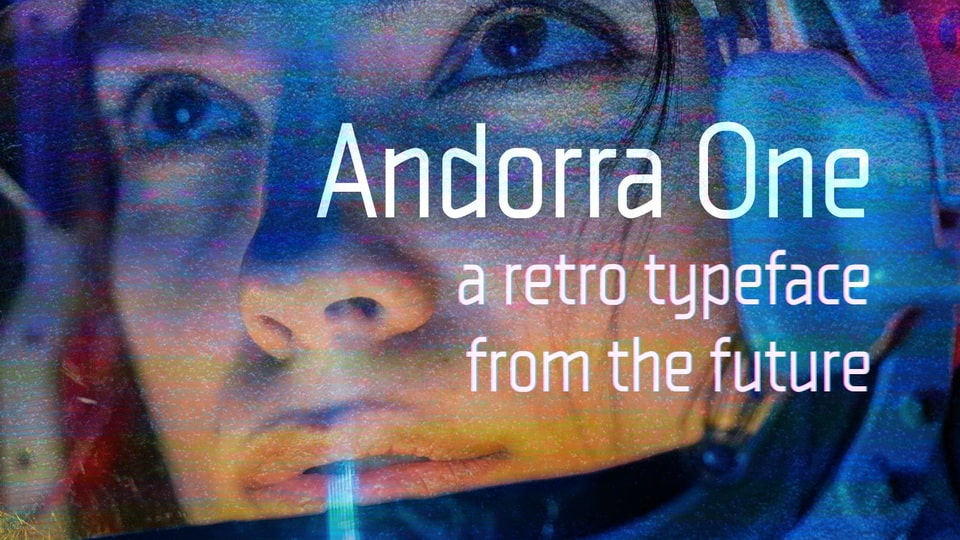
Download Andorra One font, a captivating retro typeface from the the future. With its unique blend of square, humanist, and monospaced characteristics, this font embodies a nostalgic yet forward-thinking aesthetic.
Designer: Edward Batkins